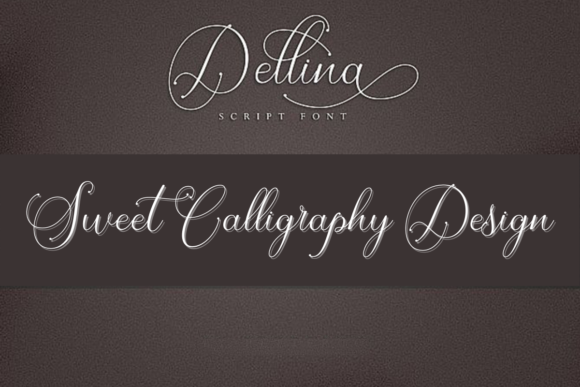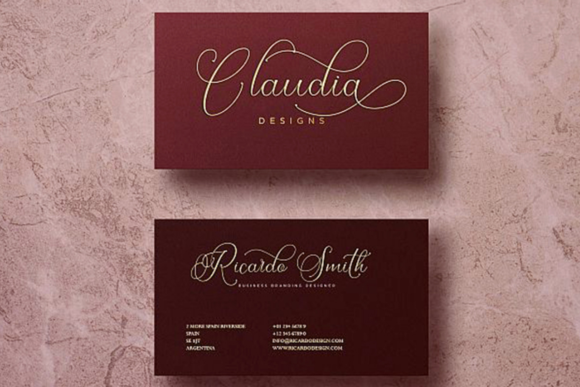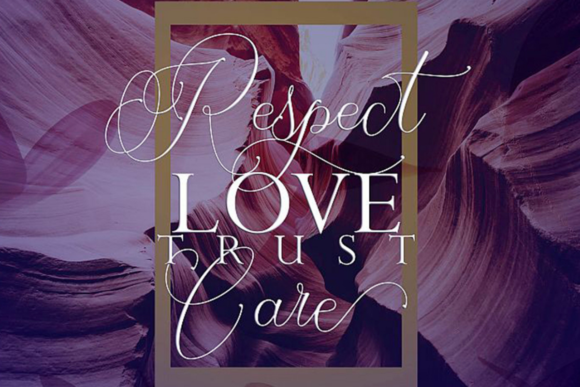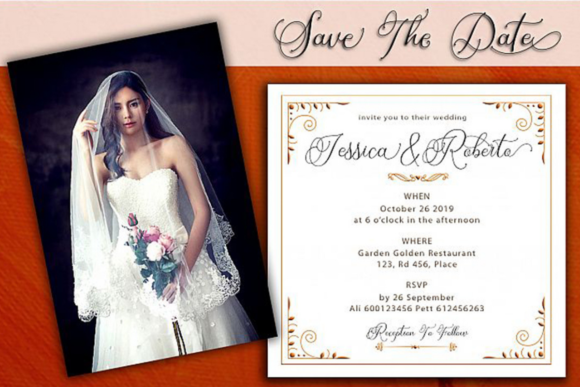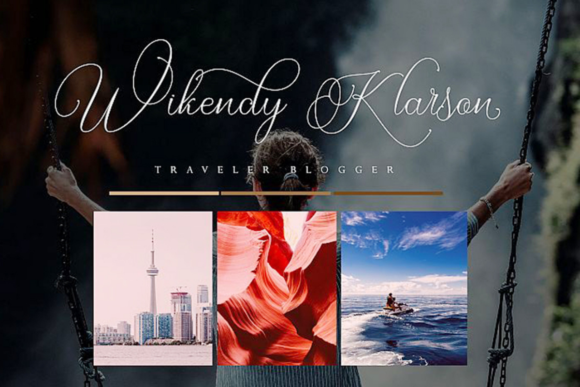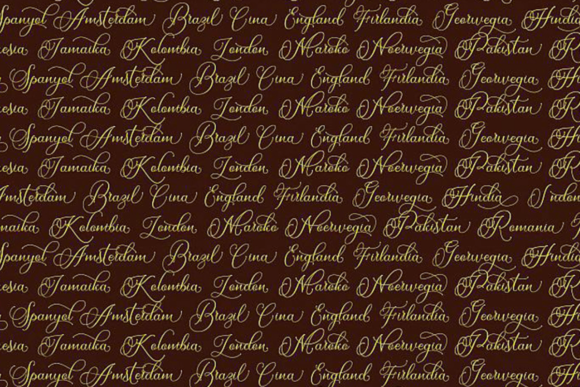
Dellina Script Font: Elevate Your Designs with Luxurious Elegance
Are you searching for a font that exudes luxury, romance, and sophistication? Look no further than the stunning Dellina Script Font. This beautiful font is perfect for designers and crafters who want to add a touch of elegance to their projects. In this article, we’ll dive into the world of Dellina Script Font, exploring its features, uses, and benefits.
What is Dellina Script Font?
Dellina Script Font is a luxurious and romantic script font that is complemented with calligraphy swashes. Its elegant and flowing lines make it perfect for creating beautiful and sophisticated designs. The font is designed to evoke a sense of luxury, making it ideal for high-end branding, wedding invitations, greeting cards, and other special projects.
Key Features of Dellina Script Font
- Luxurious and Romantic: Dellina Script Font is designed to add a touch of luxury and romance to your designs. Its elegant lines and flowing curves make it perfect for creating sophisticated and beautiful designs.
- Calligraphy Swashes: The font comes with calligraphy swashes that add an extra touch of elegance to your designs. These swashes can be used to create beautiful flourishes and decorations.
- Versatile: Dellina Script Font is versatile and can be used for a wide range of projects, including wedding invitations, greeting cards, branding, and more.
- Elegant and Sophisticated: The font is designed to create elegant and sophisticated designs that are perfect for high-end projects.
Uses of Dellina Script Font
Dellina Script Font is perfect for a wide range of projects, including:
- Wedding Invitations: The font is perfect for creating beautiful and elegant wedding invitations that set the tone for a luxurious and romantic wedding.
- Greeting Cards: Dellina Script Font can be used to create beautiful and sophisticated greeting cards for special occasions, such as birthdays, anniversaries, and holidays.
- Branding: The font is ideal for high-end branding projects, such as luxury product branding, hotel branding, and restaurant branding.
- Stationery: Dellina Script Font can be used to create beautiful and elegant stationery, such as letterheads, envelopes, and notebooks.
Benefits of Using Dellina Script Font
Using Dellina Script Font offers several benefits, including:
- Unique and Distinctive: The font is unique and distinctive, making it perfect for designers and crafters who want to stand out from the crowd.
- Elegant and Sophisticated: Dellina Script Font is designed to create elegant and sophisticated designs that are perfect for high-end projects.
- High-Quality: Dellina Script Font is a high-quality font that is designed to produce beautiful and clear designs.
Tips for Using Dellina Script Font
Here are some tips for using Dellina Script Font:
- Use it Sparingly: Use the font sparingly to create a sense of luxury and elegance. Overusing the font can make your design look cluttered and messy.
- Pair it with Other Fonts: Pair Dellina Script Font with other fonts to create a beautiful and harmonious design.
- Experiment with Swashes: Experiment with the calligraphy swashes to create beautiful and unique designs.
- Use it for Headlines: Use Dellina Script Font for headlines and titles to create a sense of luxury and elegance.
Dellina Script Font is a luxurious and romantic script font that is perfect for designers and crafters who want to add a touch of elegance to their projects. With its elegant lines, flowing curves, and calligraphy swashes, this font is ideal for creating beautiful and sophisticated designs. Whether you’re creating wedding invitations, greeting cards, branding, or stationery, Dellina Script Font is the perfect choice. So why wait? Download Dellina Script Font today and elevate your designs with luxurious elegance.